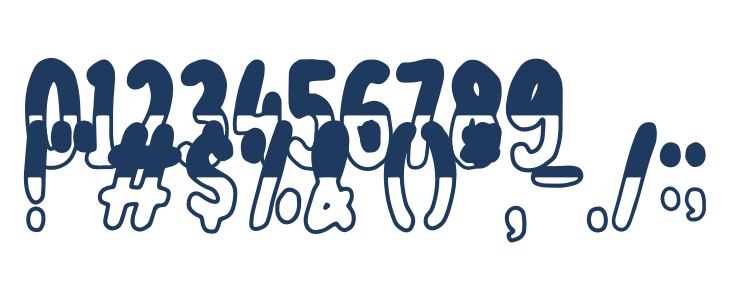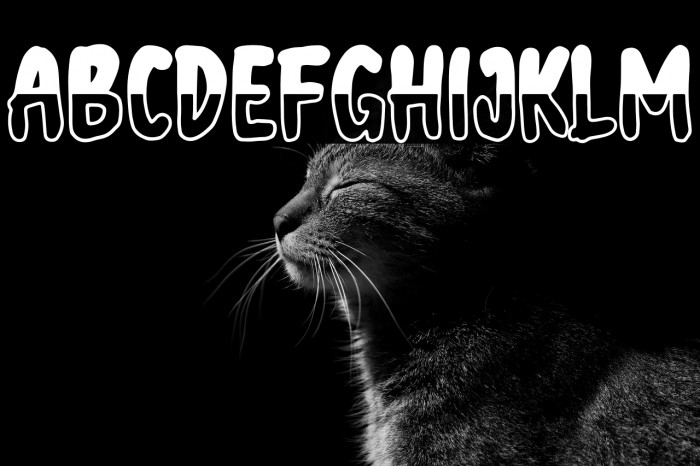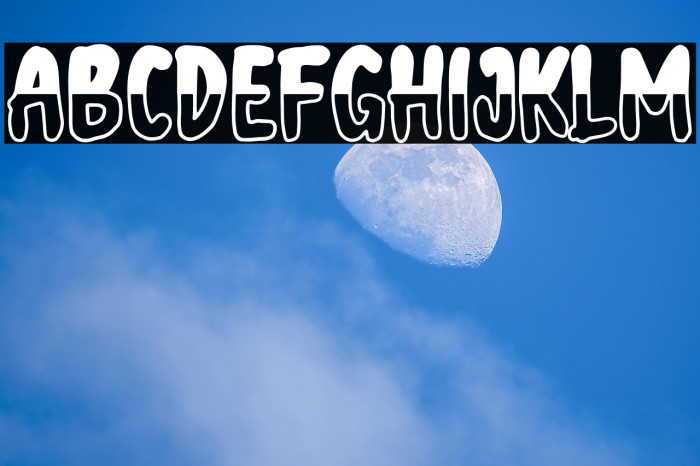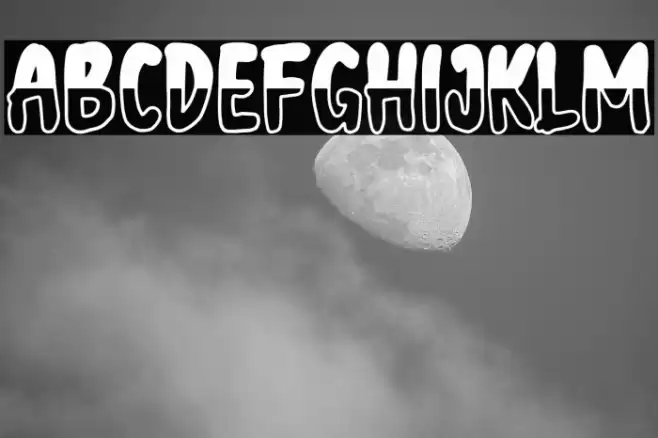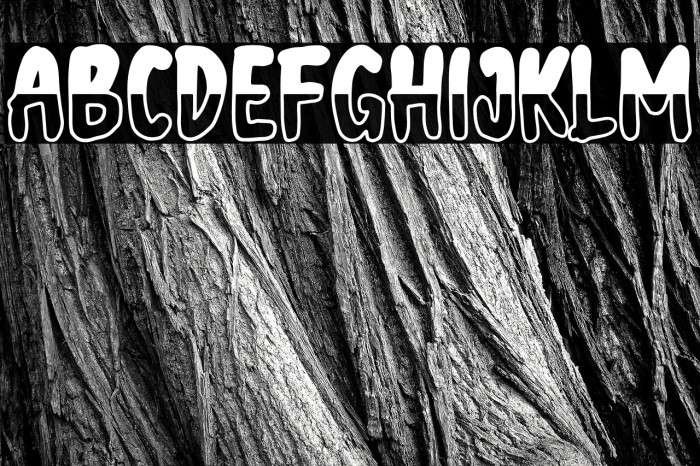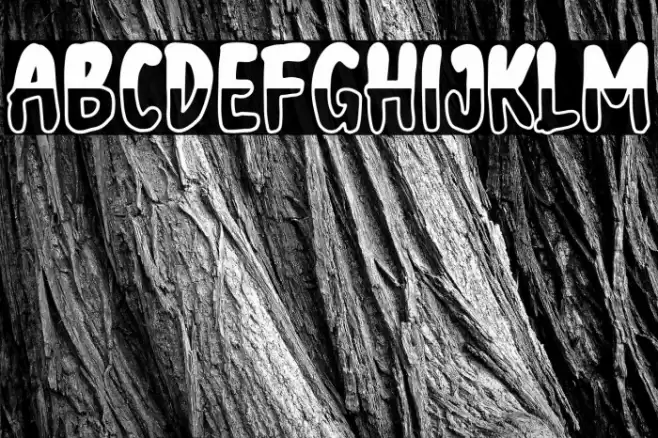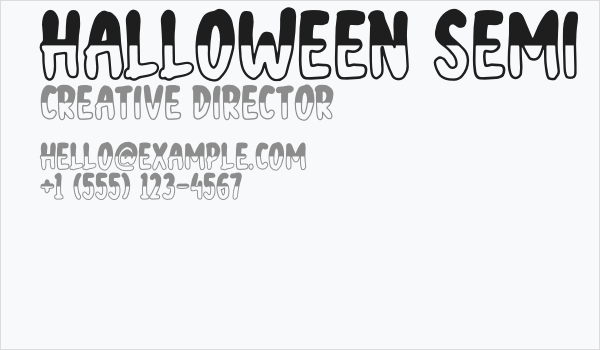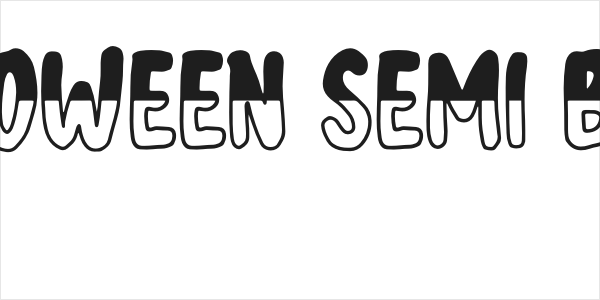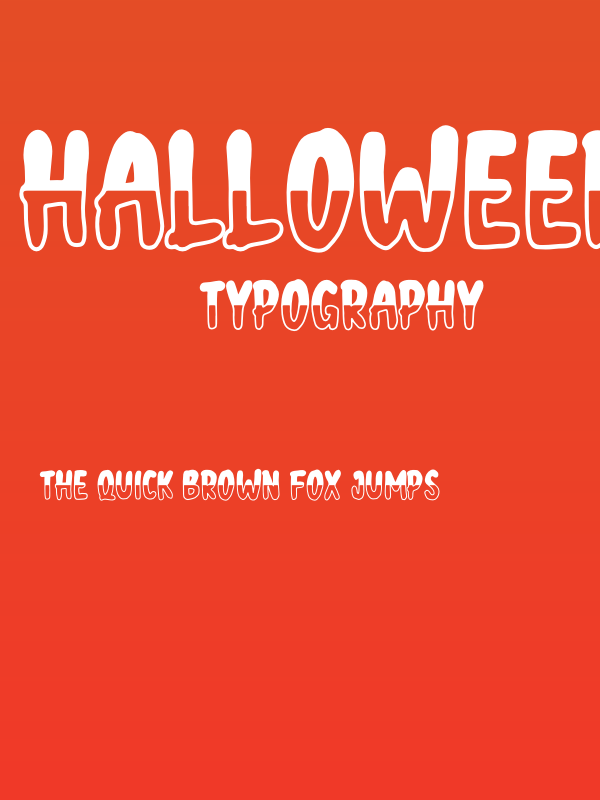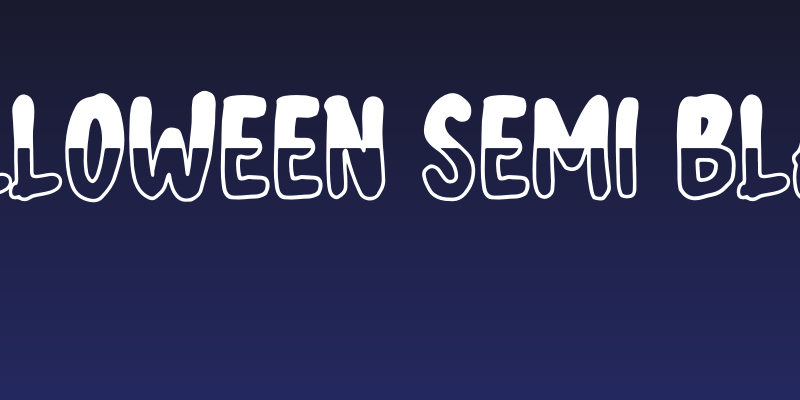
Halloween semi black Font
Halloween semi black Description
This font features a playful and bold design, characterized by thick, rounded letters with a slightly irregular and hand-drawn appearance. The uppercase and lowercase letters maintain a consistent style, with exaggerated curves and a whimsical flair. The numbers and special characters follow the same playful theme, making the font ideal for creative and informal applications. The overall look is reminiscent of a cartoon or comic style, with a touch of retro charm. The font's unique personality makes it stand out, perfect for capturing attention in various design projects.
| Proposed Projects | Ideal for Halloween-themed designs, children's books, comic strips, party invitations, and playful branding. |